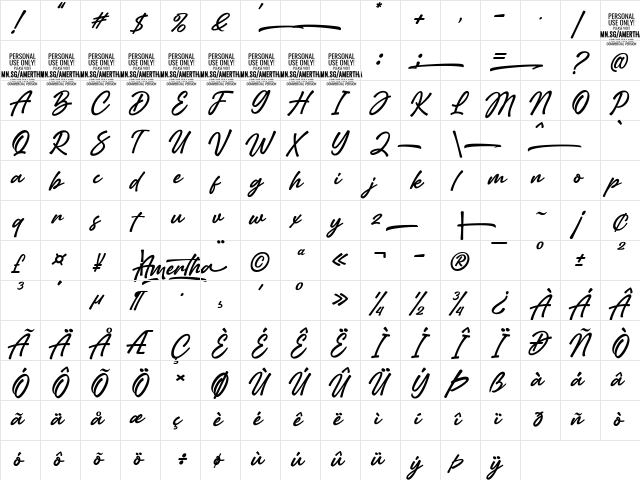
Amertha PERSONAL USE ONLY Regular
| Foundry | Subectype & Mans Greback |
| Designer | Rangga Singgih Subekti & Mans Greback |
Design Context for Amertha PERSONAL USE ONLY Typeface
Amertha PERSONAL USE ONLY is a composed and adaptable typeface that performs quietly and consistently across a wide range of design contexts.